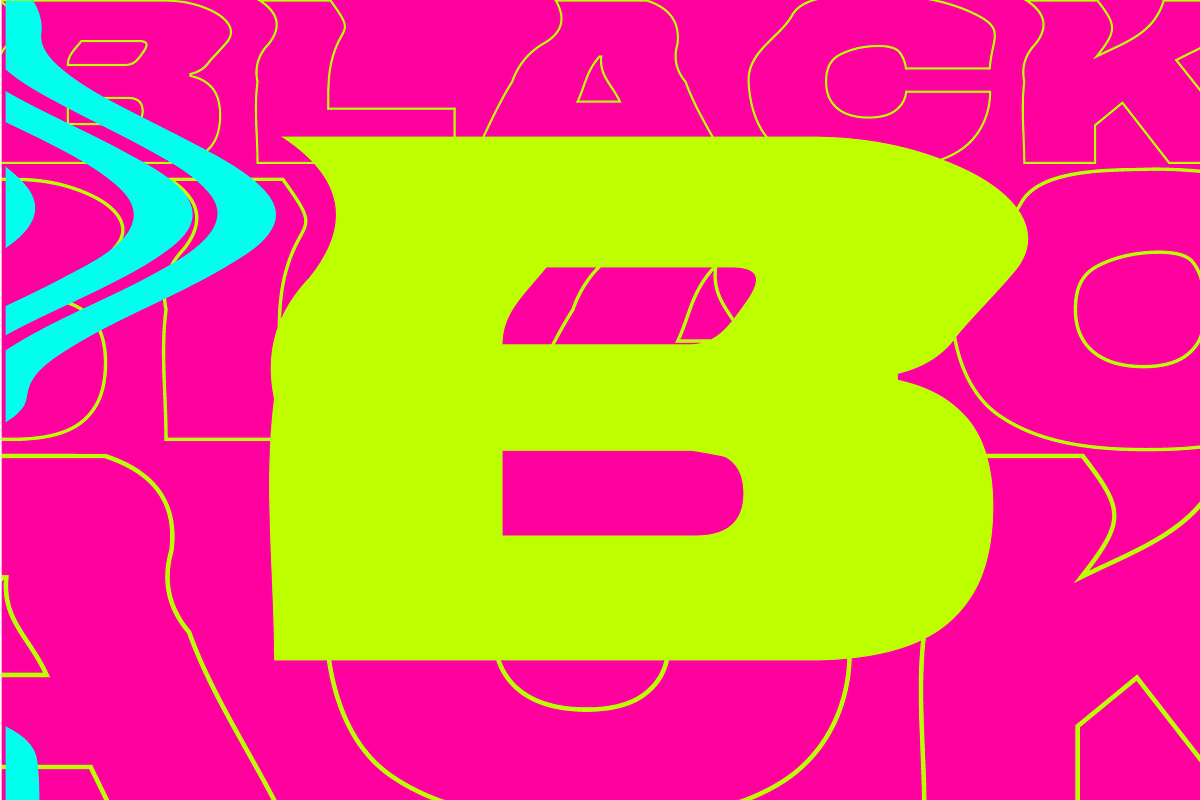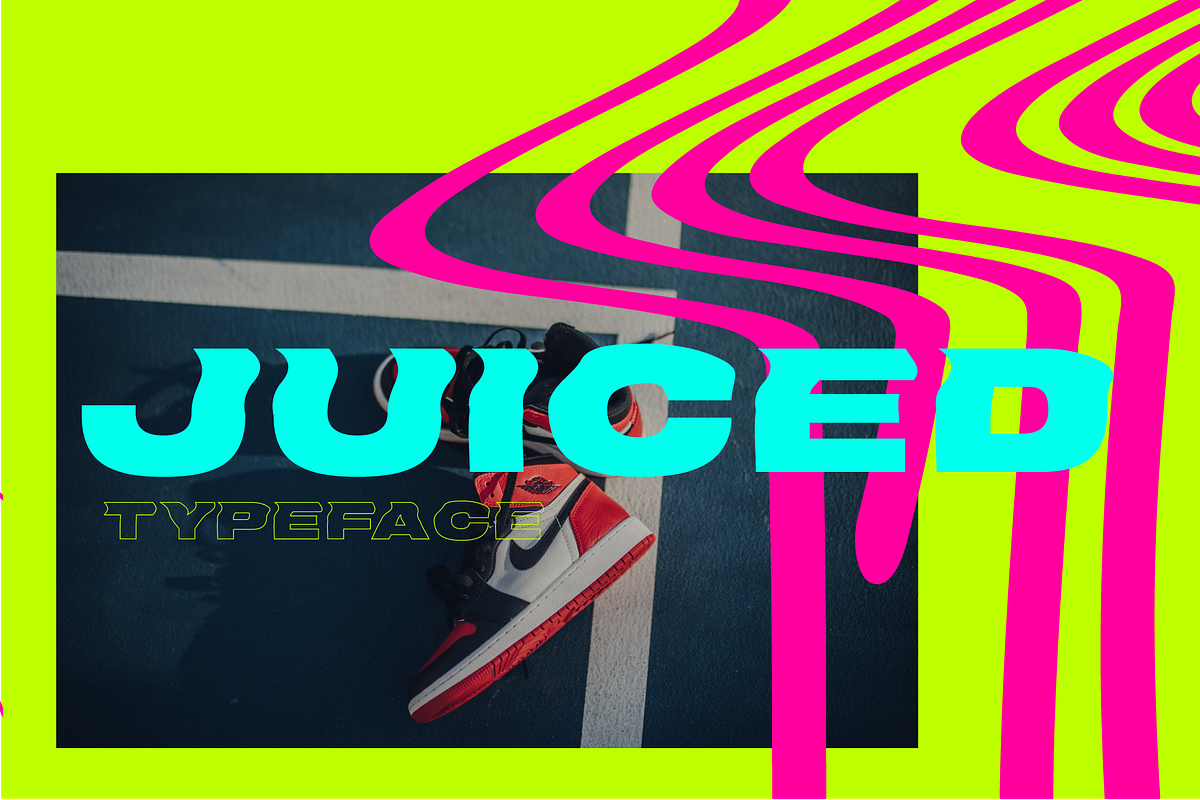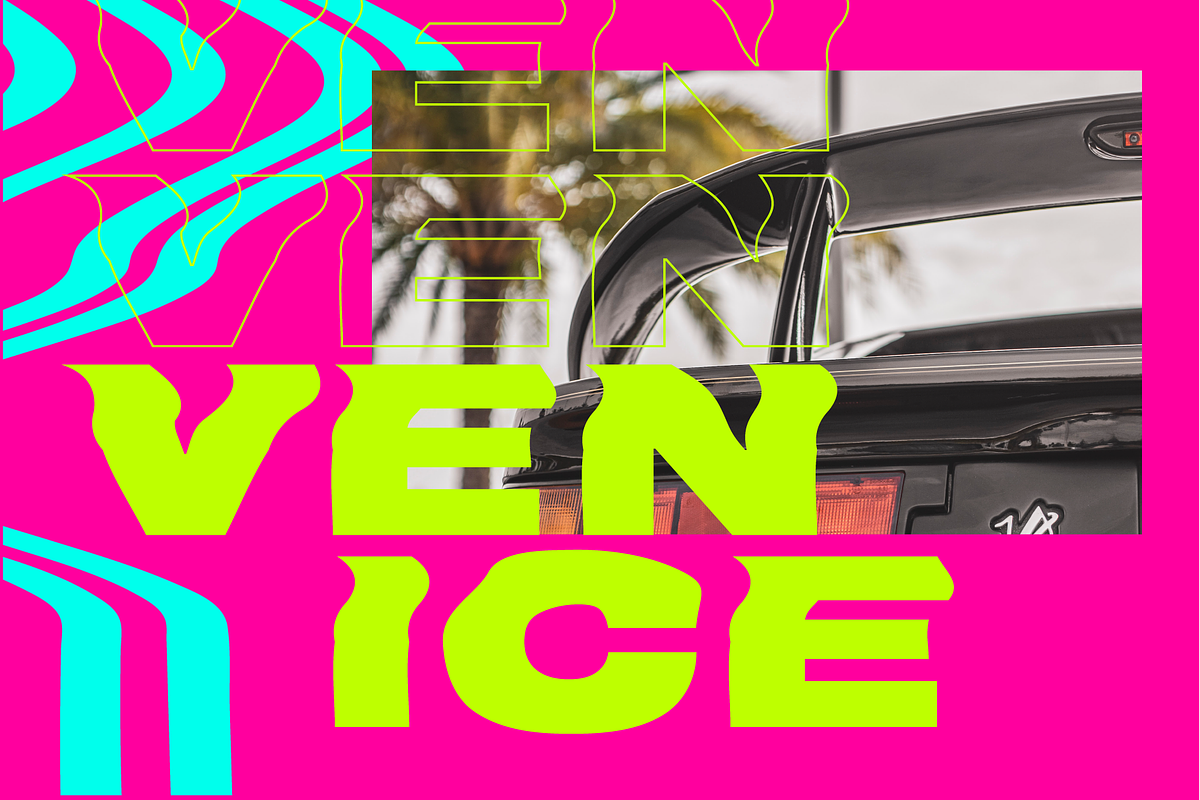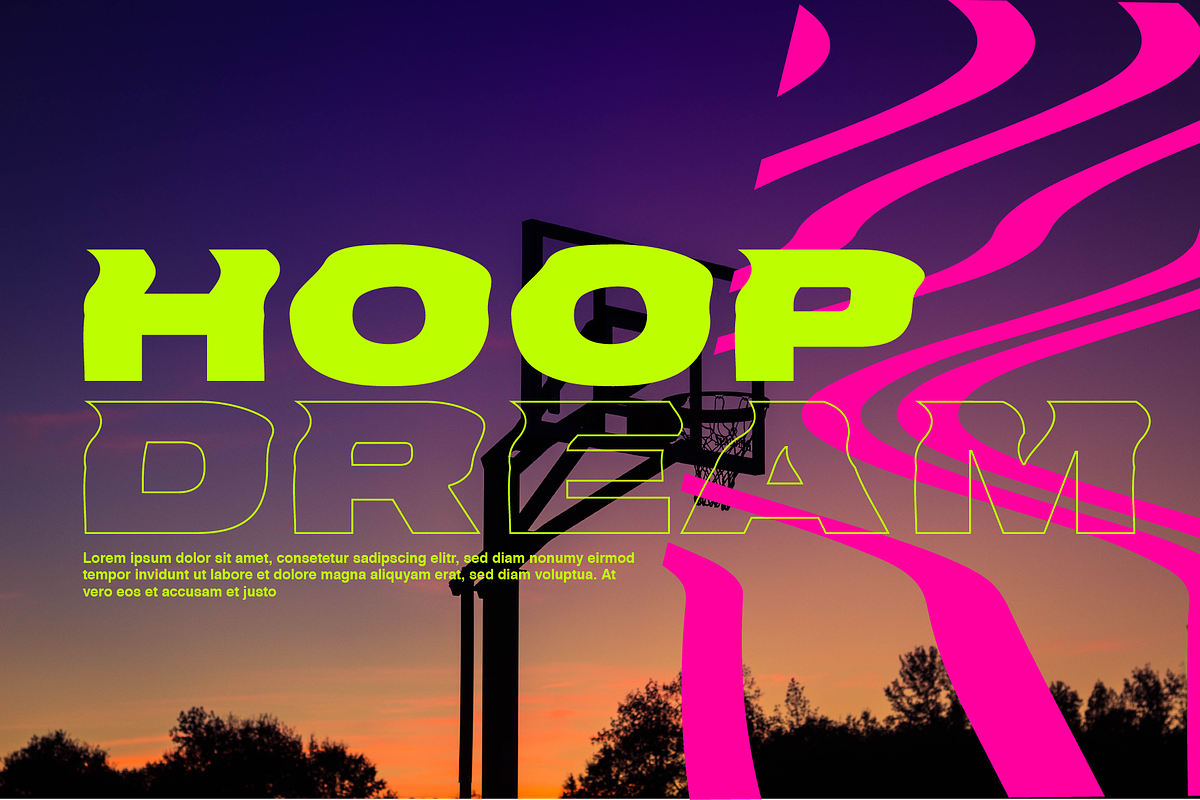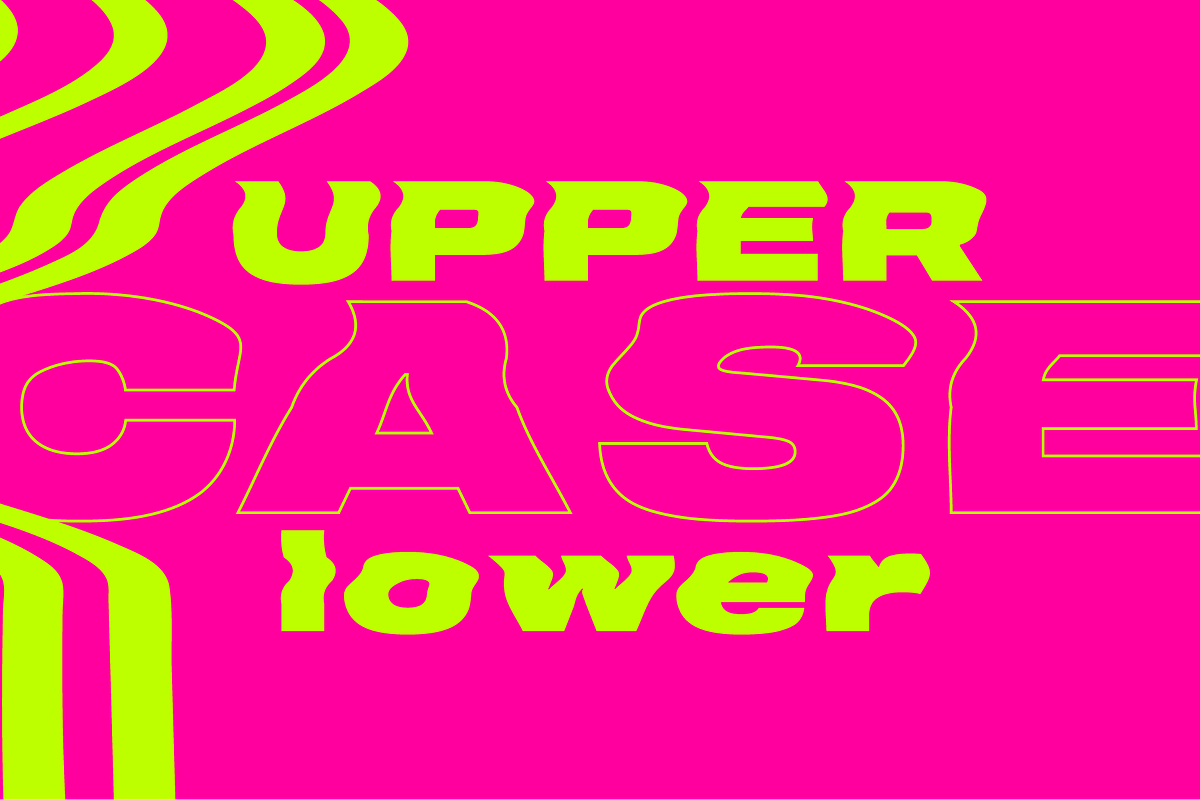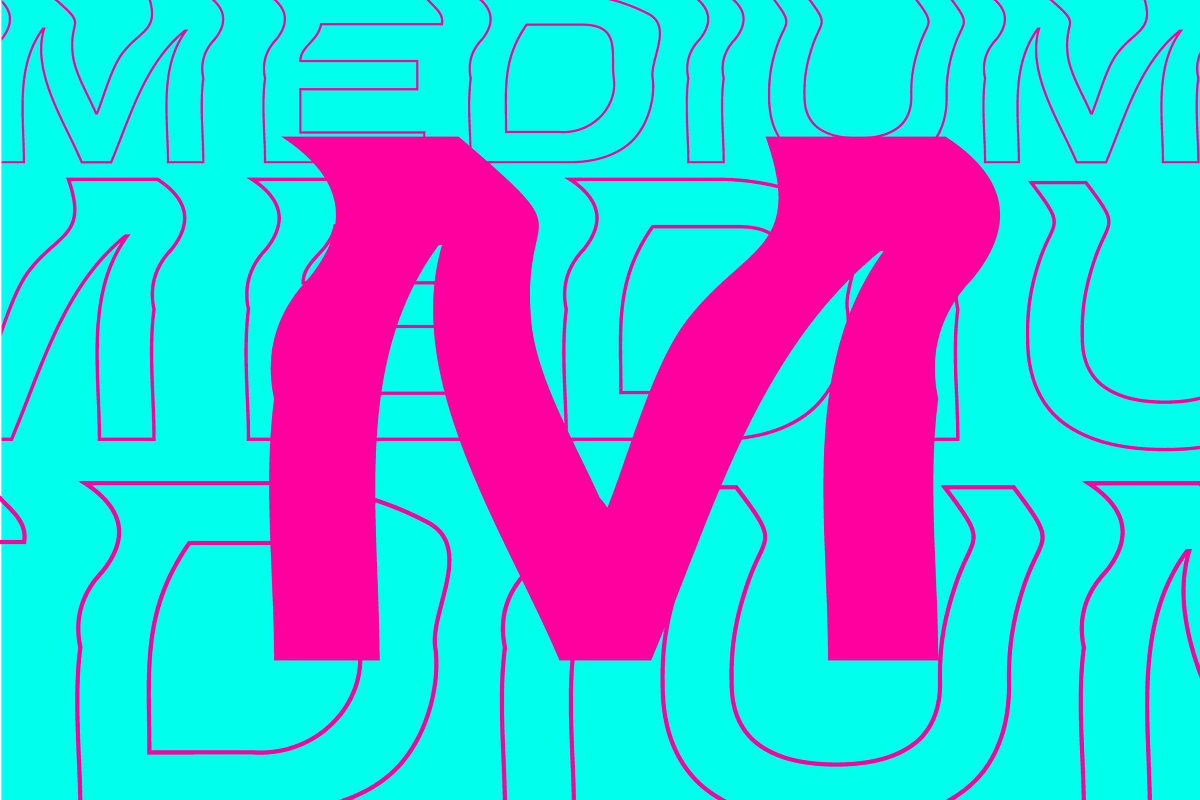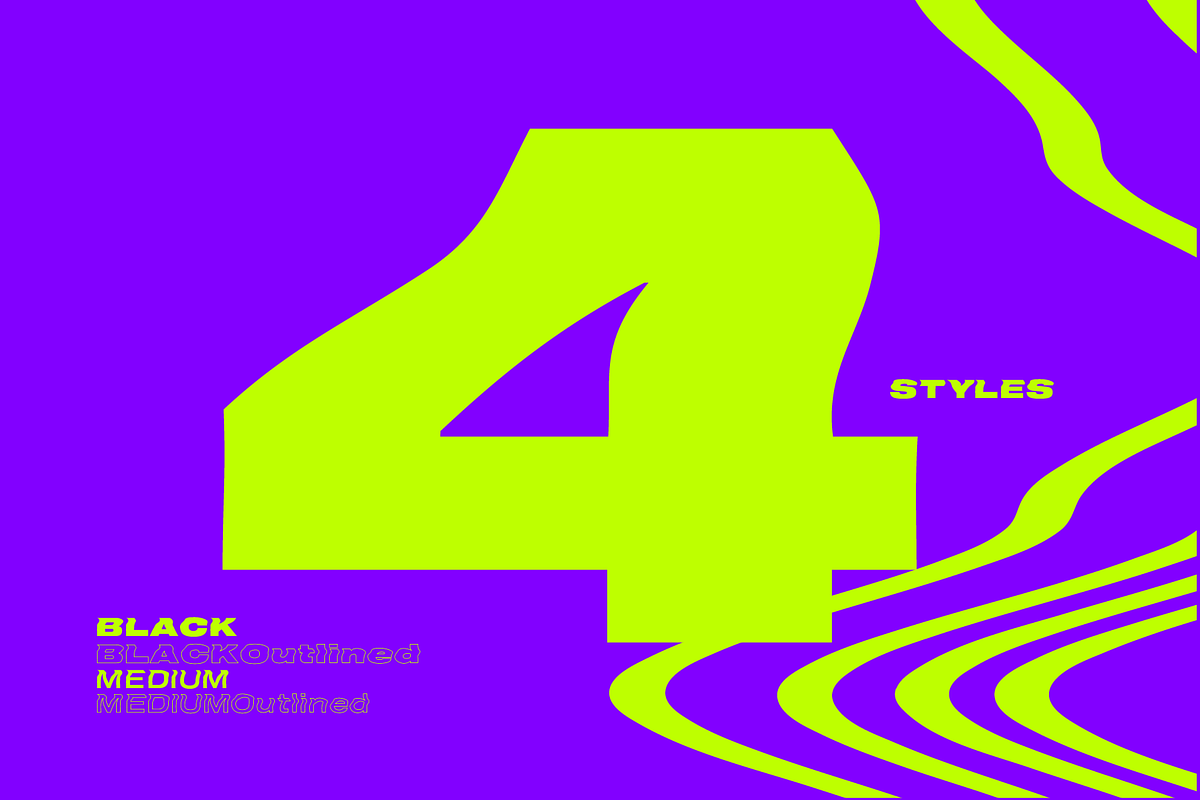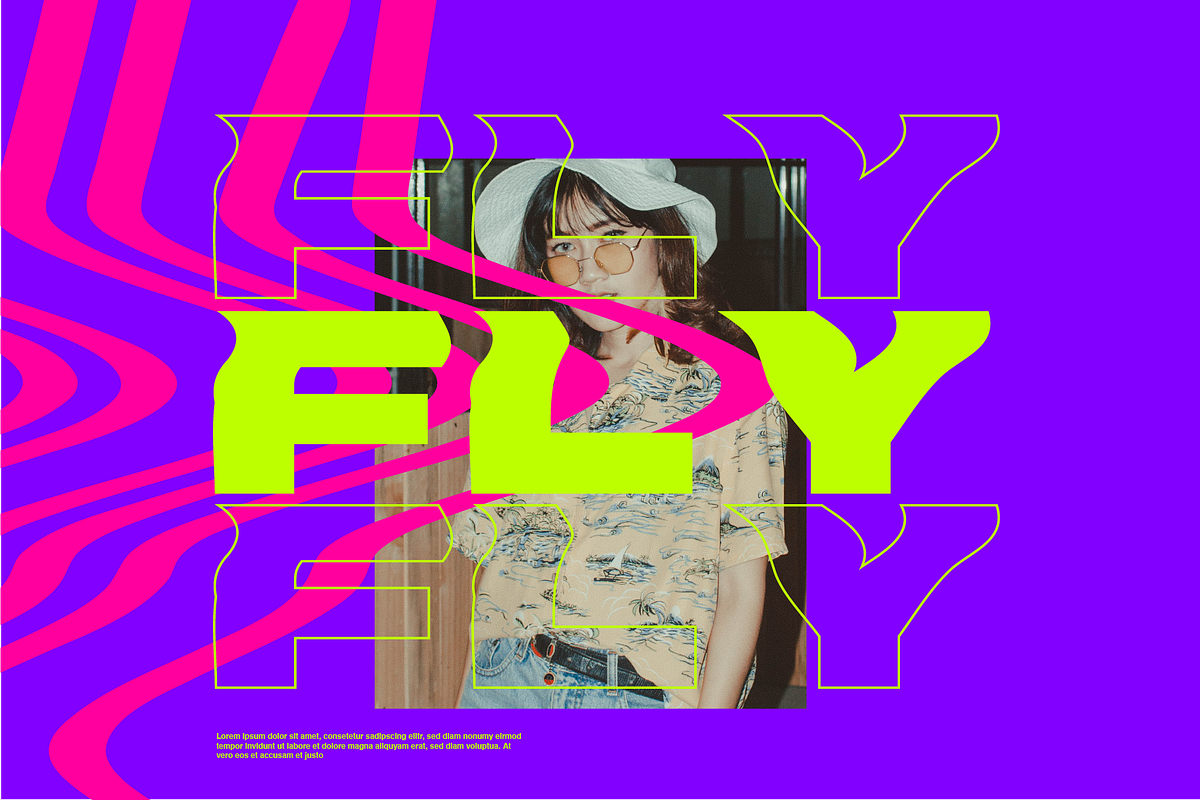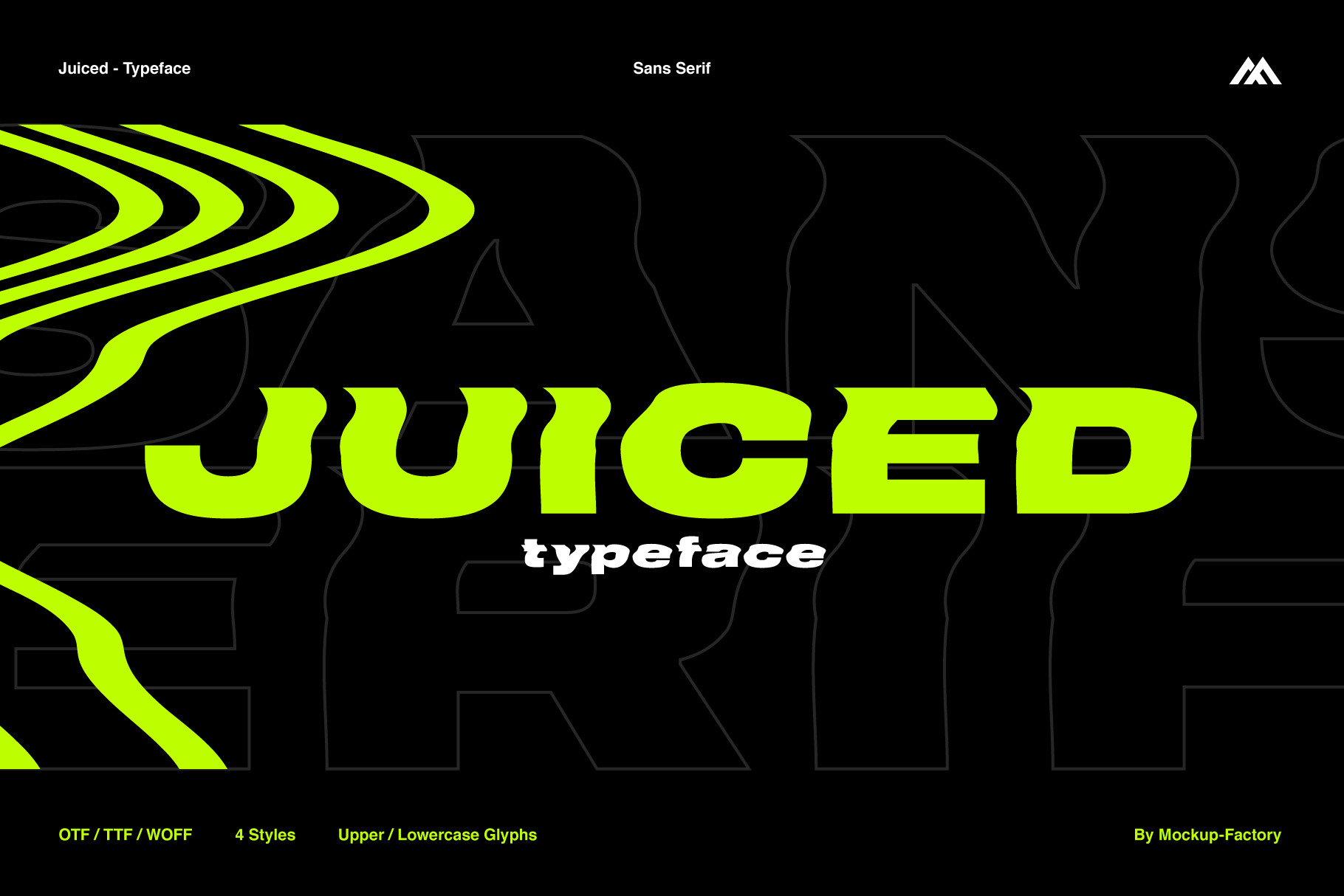
JUICED - Typeface
Juiced is a fresh & cool extended width sans serif typeface. The family includes 4 modern font styles. There are over 110 glyphs for creative escalation.
- 4 font styles (2x filled / 2x outlined)
- Upper / lowercase glyphs
- 110 glyphs